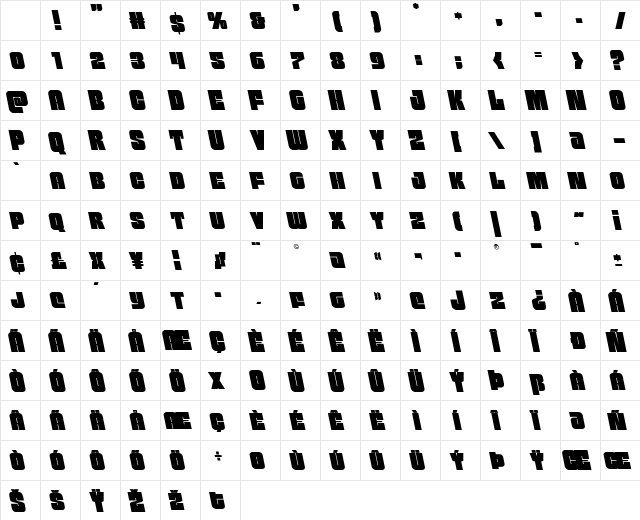
Funk Machine Leftalic Italic Free Font
Funk Machine Leftalic Italic
Design Context for Funk Machine Leftalic
Funk Machine Leftalic has an approachable, lighthearted character - its loose, expressive forms are well-suited to children's content, casual branding, and fun-first design. The slanted form adds forward momentum and visual energy.
Font Pairing: Pairs well with a rounded or humanist sans for body copy, maintaining the friendly tone without relying on Funk Machine Leftalic to carry extended reading.
Pro Tip: Use Funk Machine Leftalic at larger display sizes where its expressive character can land. Pair with a clean, simple sans for body copy to maintain readability.